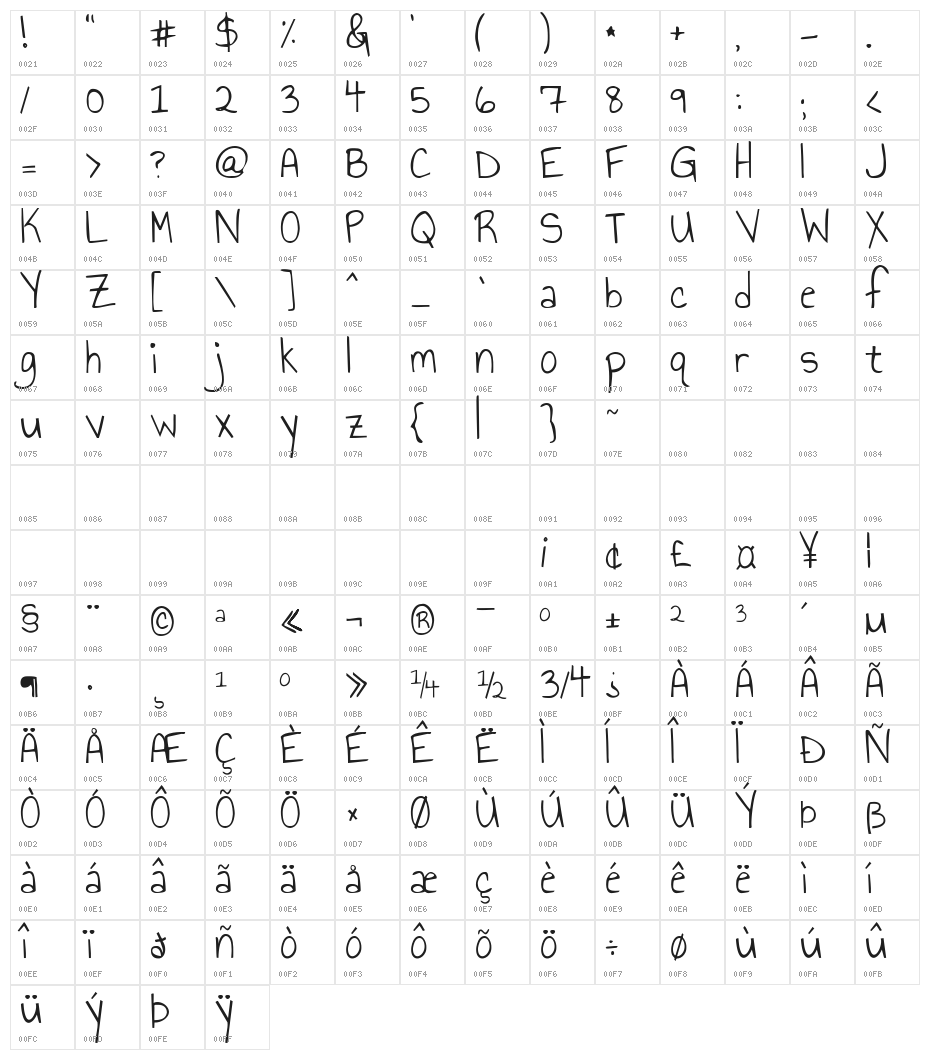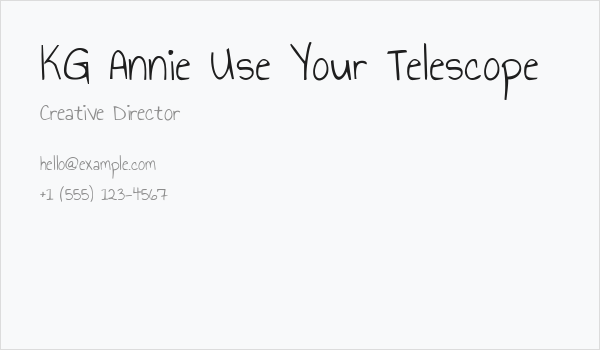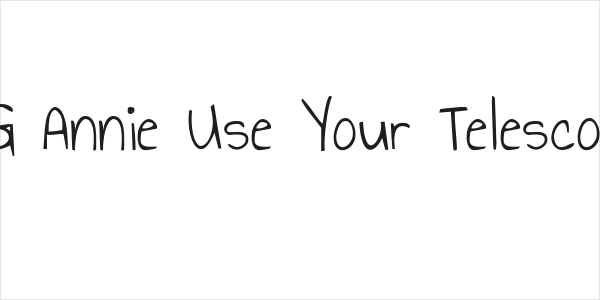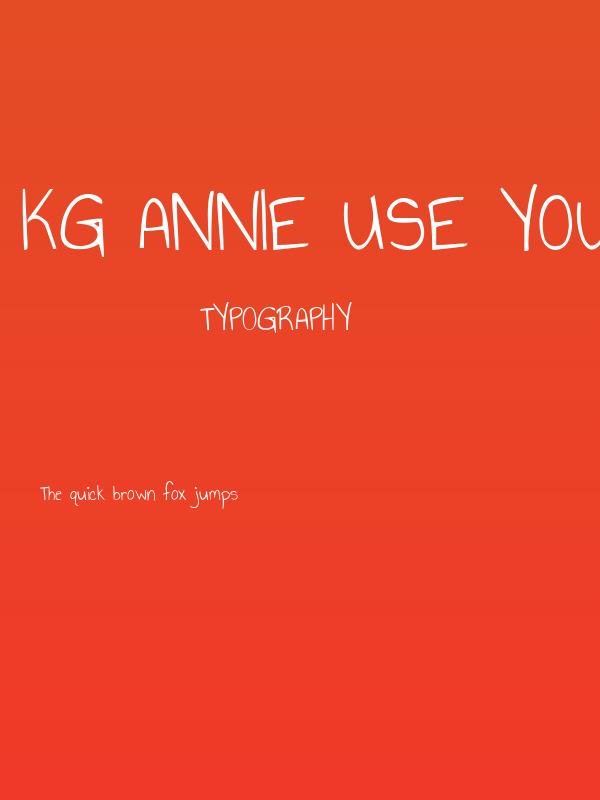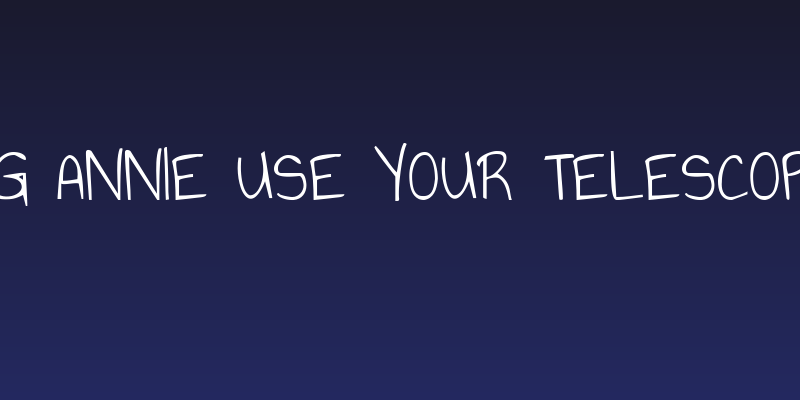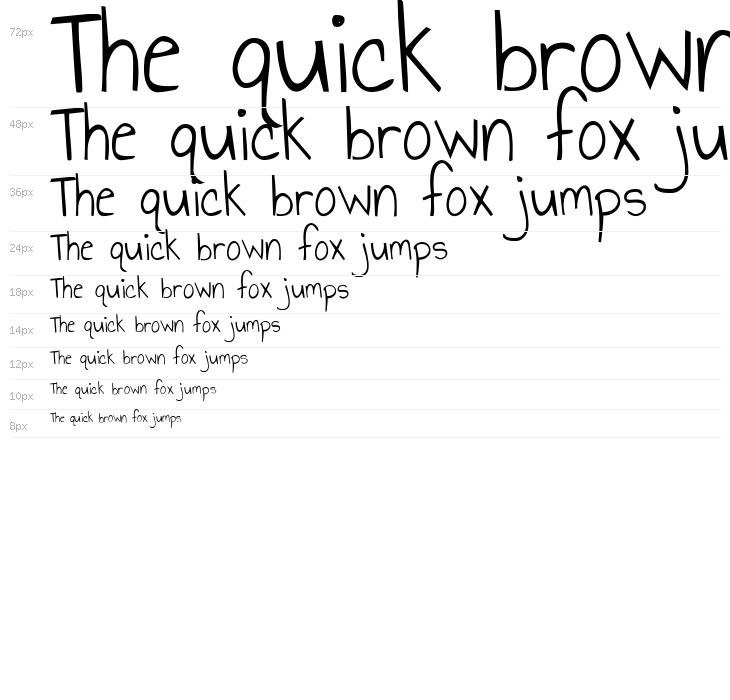
KG Annie Use Your Telescope Font
KG Annie Use Your Telescope Description
This playful and whimsical font features a handwritten style with a casual and friendly appearance. The characters are slightly irregular, giving it a personal touch that mimics natural handwriting. The uppercase letters are tall and narrow, while the lowercase letters have a more rounded and open form. Numbers and special characters maintain the same playful aesthetic, making the font versatile for various uses. The strokes are consistent in weight, providing a uniform look across all characters. This font is ideal for projects that require a personal, informal, and approachable feel.
| Proposed Projects | Ideal for children's books, greeting cards, personal blogs, and playful branding. |